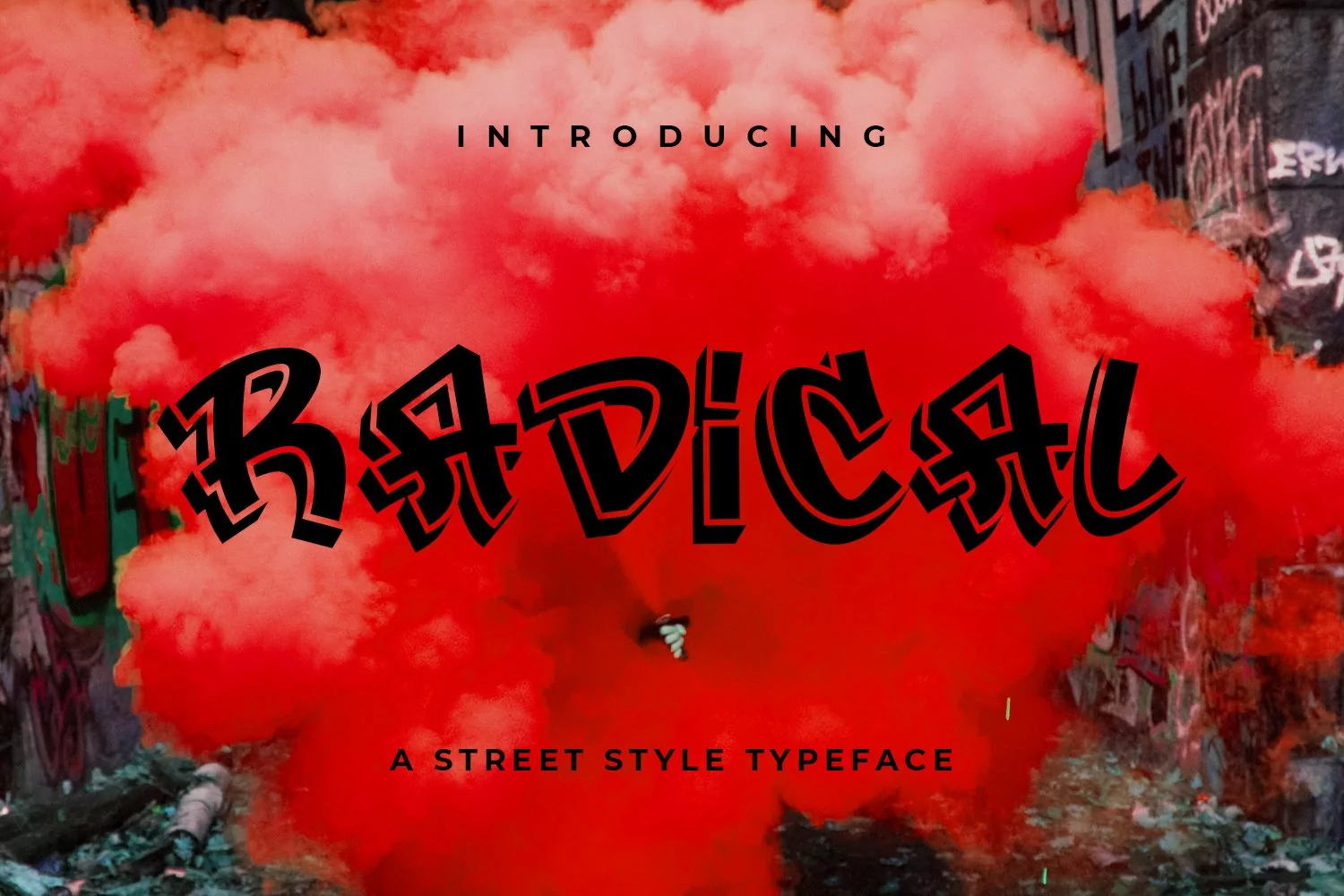
Ah, yeah! Rock that street style look with the Radical font. It's as bold and bodacious as a street style font as you can get. Add some serious impact to your designs with this hand drawn brush script. If you want your text to show attitude, look no further than Radical.